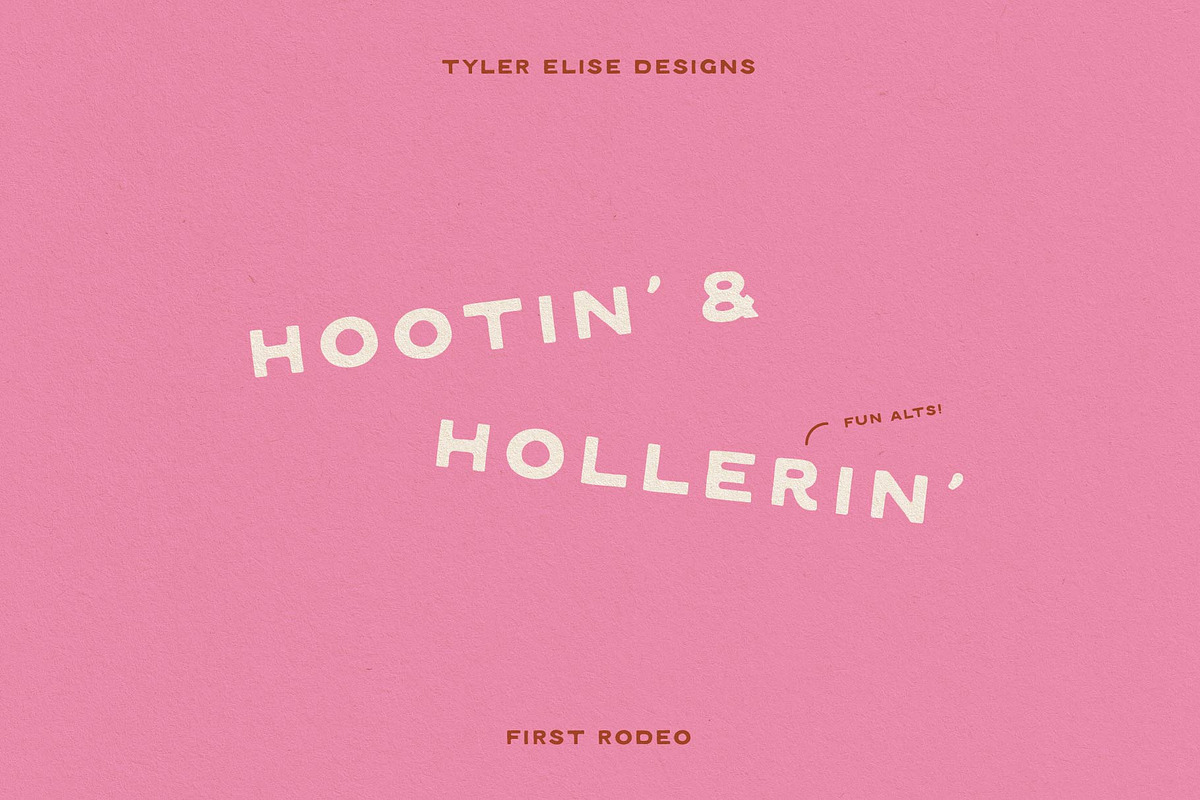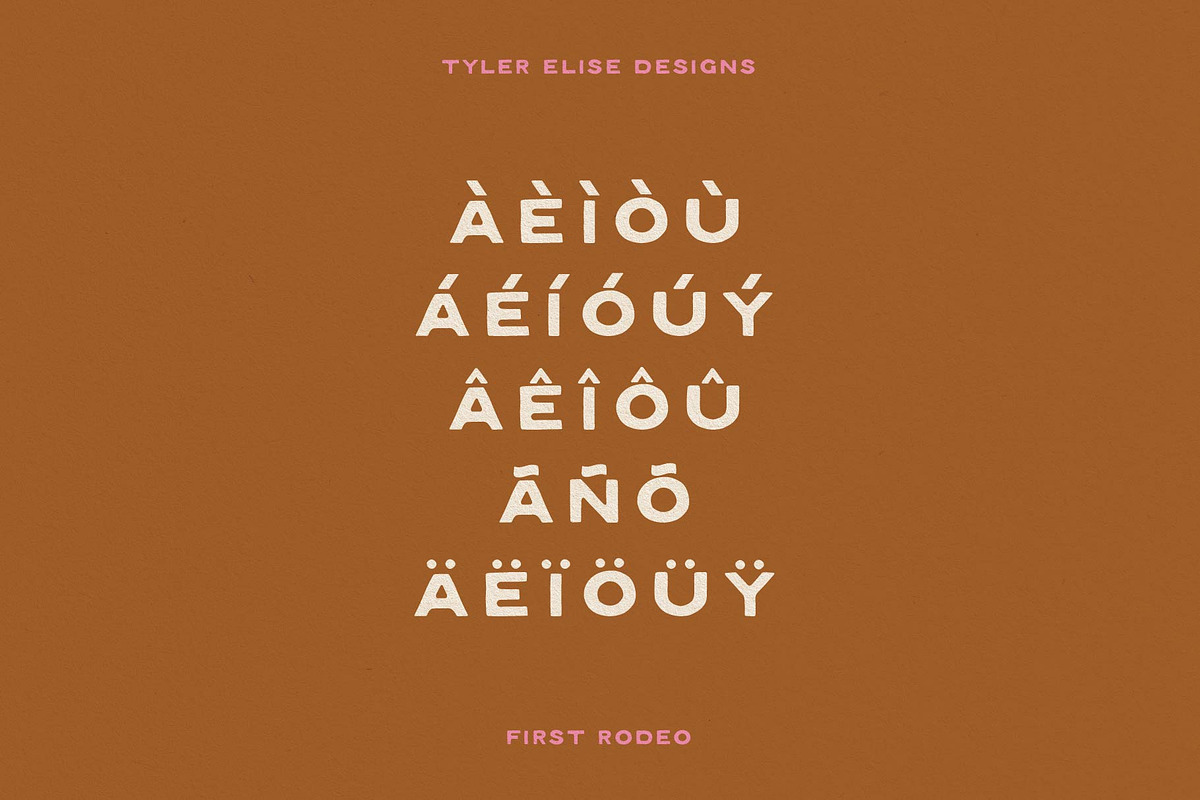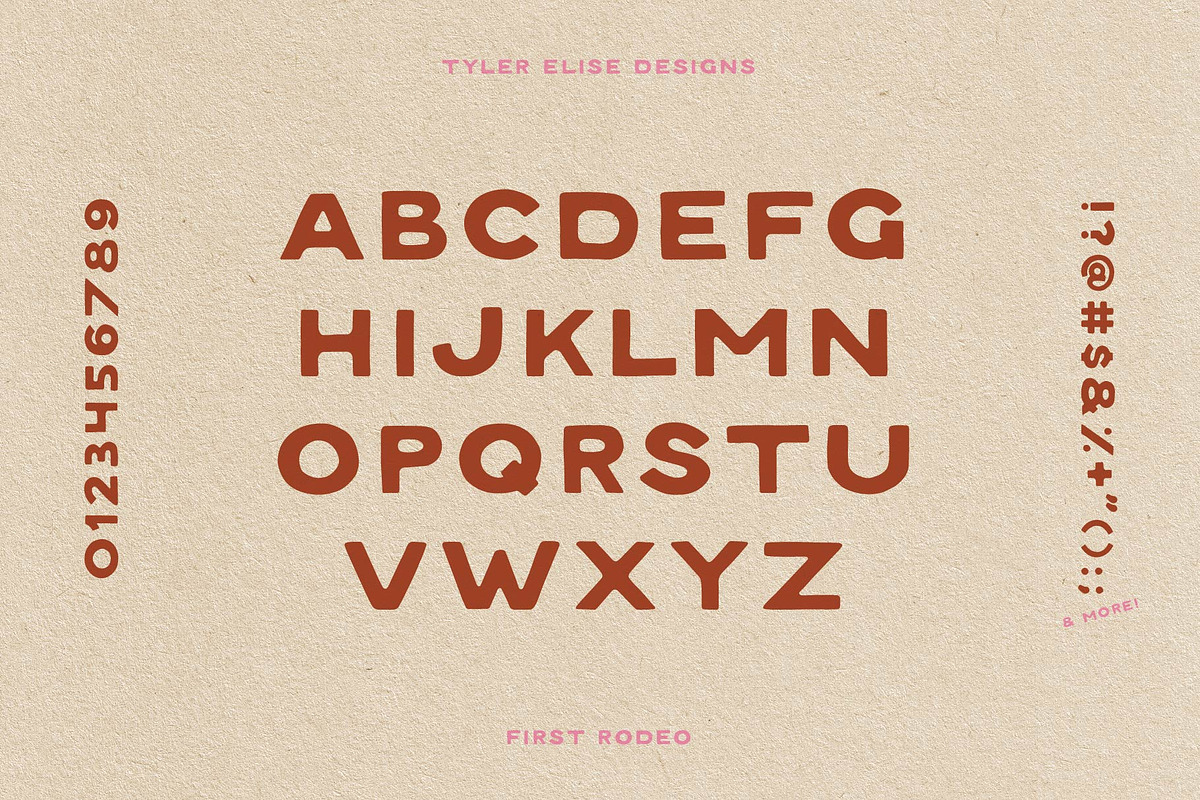
FIRST RODEO is a hand-lettered sans serif filled with unique texture and a touch of wonkiness that will add the perfect amount of character to your next logo or design project.